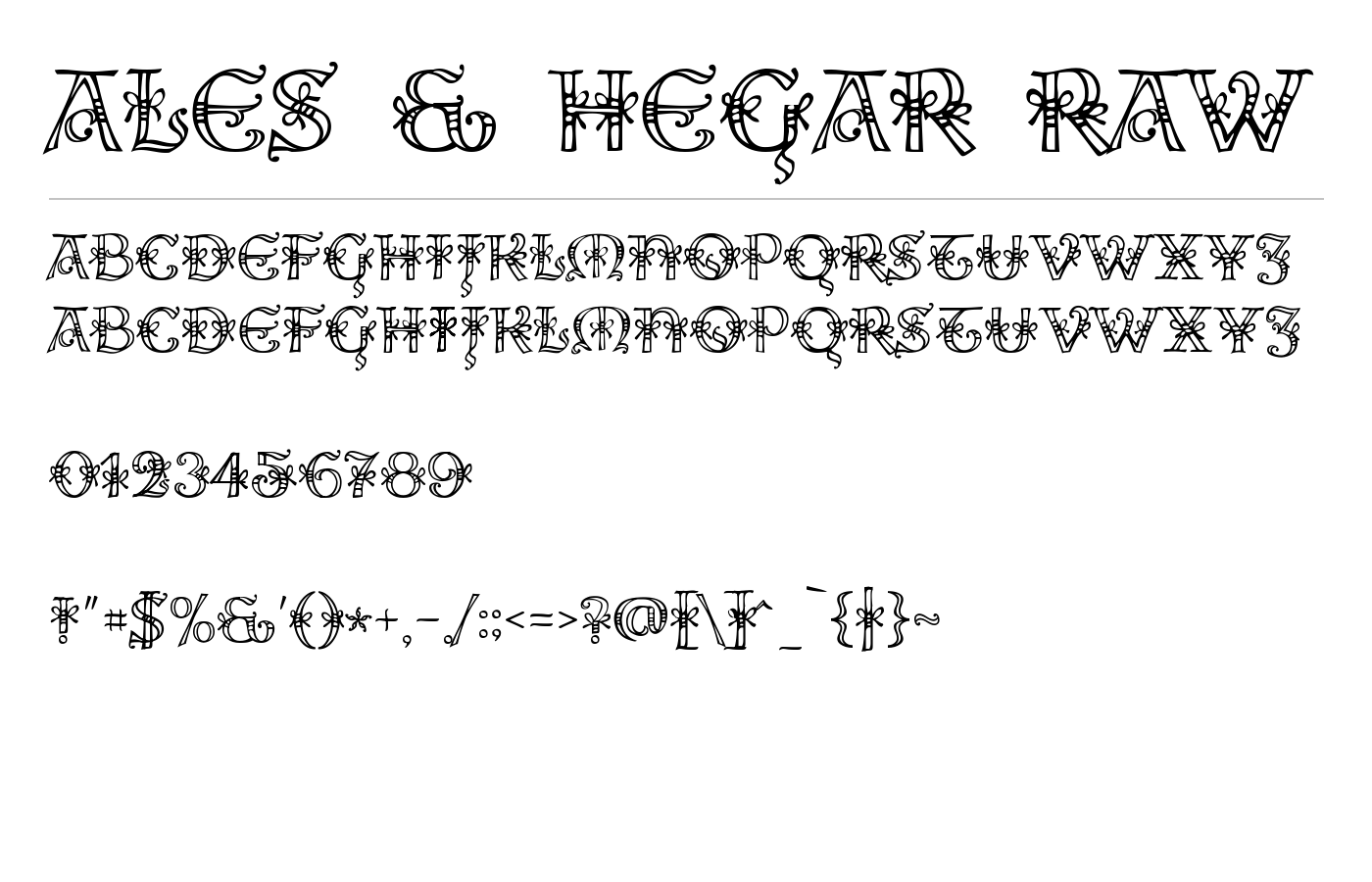
Ales & Hegar Raw is an ornate serif typeface blending decorative, vintage charm with intricate detailing that gives it a whimsical, artistic feel. Its tall, elegant letters feature unique swirls and embellishments, making it perfect for creative headlines, logos, or packaging where a distinctive, eye-catching style is needed. This font adds a handcrafted, antique touch that works beautifully in fashion, boutique branding, or any design seeking a playful yet sophisticated statement.
Ales & Hegar Raw Font
About Ales & Hegar Raw Font